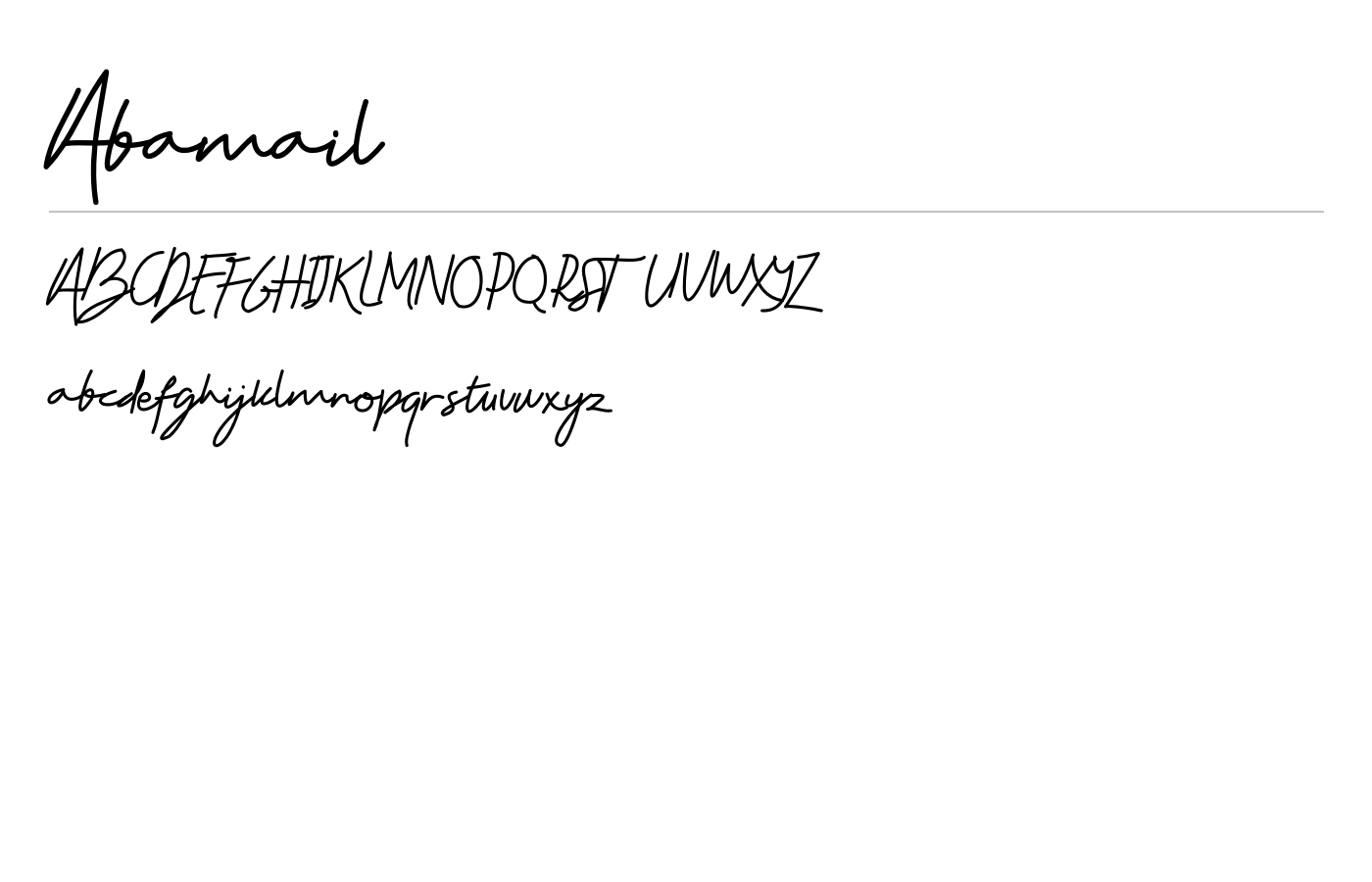
Abamail is a lively, handwritten script font with a casual and energetic feel, characterized by its tall, narrow letterforms and flowing, slightly irregular strokes. Its delicate, lightweight lines and natural, impromptu style make it perfect for creative branding, invitations, and personal projects where a friendly, artistic touch is desired. This font works best when used in headlines or short text to convey personality and authenticity.
Abamail Font